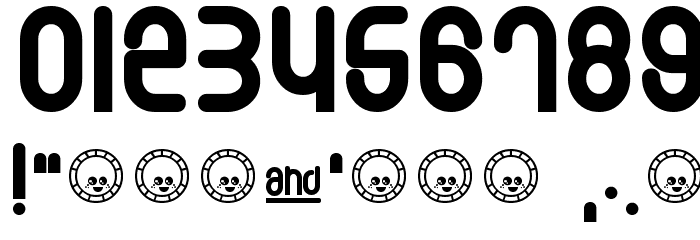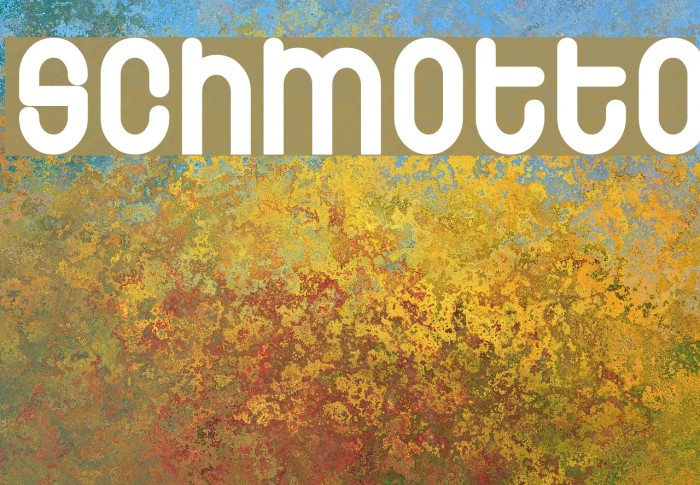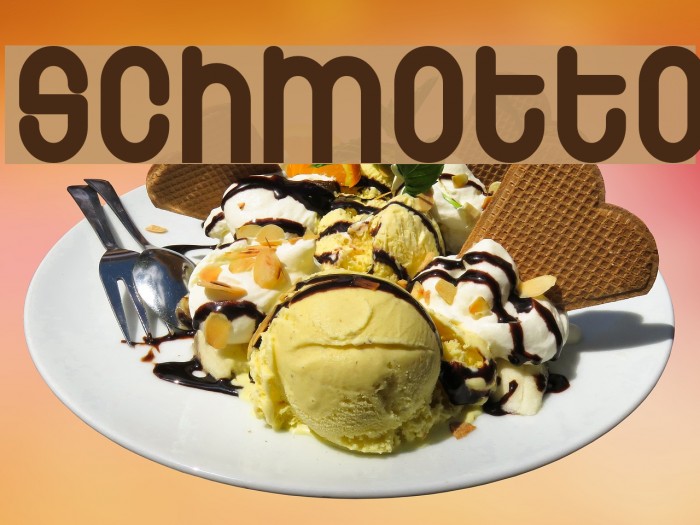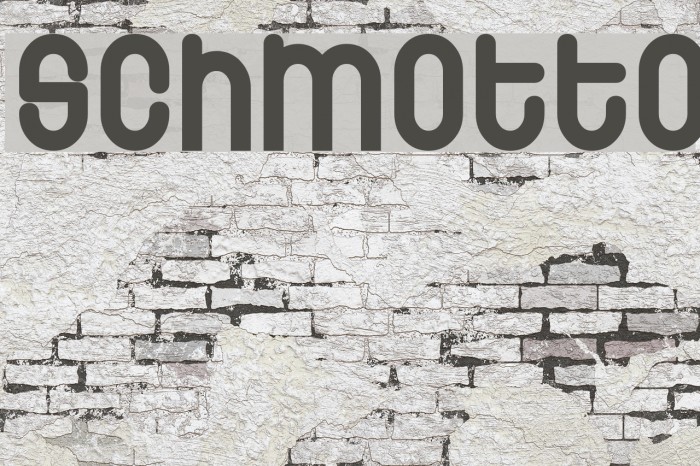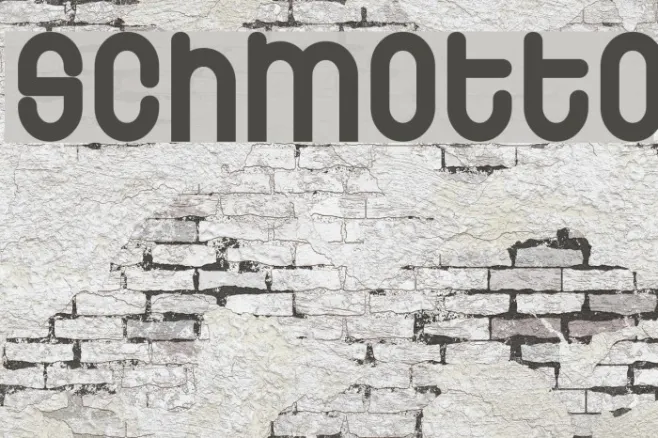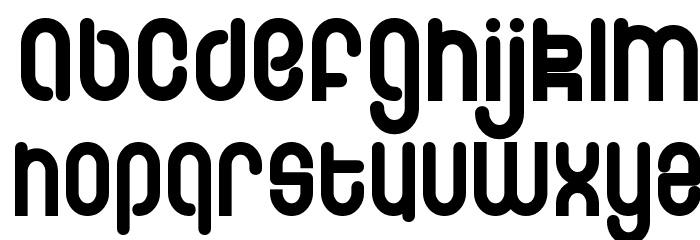
Schmotto Font
Schmotto Description
This font features a bold and rounded style with a playful and modern aesthetic. The characters are uniformly thick, creating a strong visual impact. The rounded edges give it a friendly and approachable feel, while the consistent stroke width maintains clarity and readability. The font includes both uppercase and lowercase letters, numerals, and a selection of special characters. Its unique style makes it suitable for creative and fun projects, adding a touch of whimsy to any design.
| Use Case | Logos, Headlines, Posters |
| Proposed Projects | Ideal for children's books, playful branding, posters, and creative digital content. |